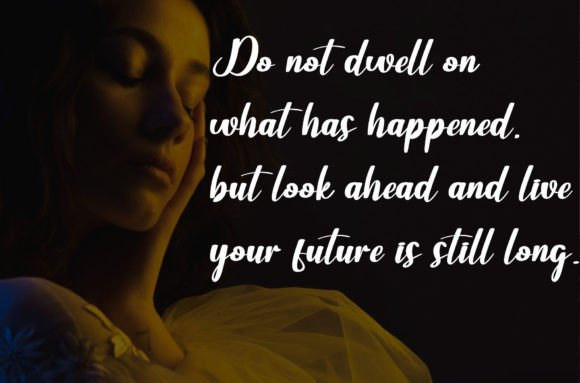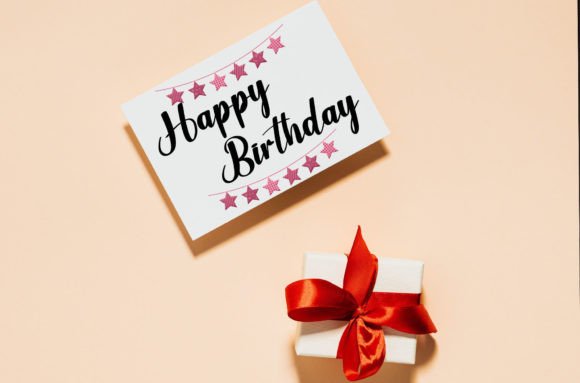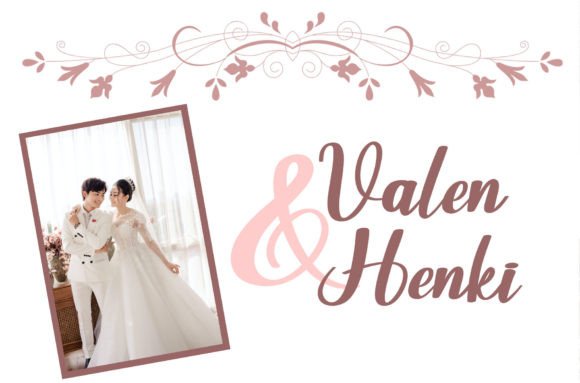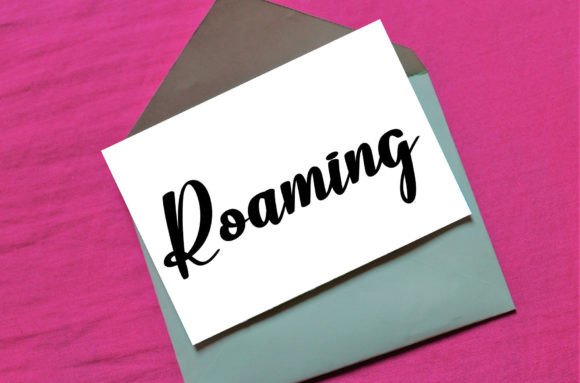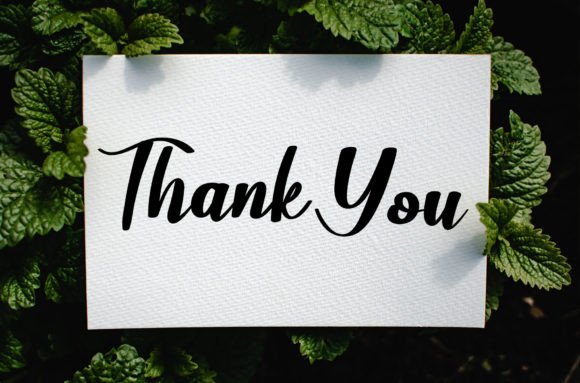
The Magic of the Christmas Font
As the snowflakes start falling and the holiday lights twinkle, designers know that Christmas is the perfect time to unleash their creativity. The festive atmosphere is the perfect excuse to experiment with new typography and bring joy to our designs. For many of us, the moment we crack open our favorite design software and start brainstorming ideas is the most exciting part of the holiday season.
One of the fonts that has captured the hearts of designers this year is the Christmas Font, a modern and flowing handwritten font that brings a touch of elegance to any design. With its varied bases, smooth lines, and gorgeous glyphs, this font is the perfect choice for creating stunning holiday cards, posters, and social media graphics. Whether you’re a seasoned designer or just starting out, the Christmas Font is an essential tool for anyone looking to add a personal touch to their designs.
Key Features of Christmas Font
- Size: Multi-language support, includes uppercase and lowercase letters, numbers, punctuation marks, and special characters
- Resolution: High-resolution fonts suitable for both screen and print use
- Unique Characteristics: Ornate and festive design elements, including holly leaves, berries, and snowflakes, add a touch of holiday cheer
- Font Style: A mix of serif and script styles, creating a unique and eye-catching look
Christmas Font Review
As a designer, I was excited to dive into the Christmas Font, and I have to say, it’s a mixed bag. ✨ Here are the things that work well:
- Unique and playful style that captures the festive spirit
- Includes a variety of font styles and weights, making it versatile for different design applications
- Well-suited for holiday-themed projects, such as Christmas cards, invitations, and packaging
However, there are some limitations to consider ⚠️:
- Limited language support, which may restrict its use for non-English projects
- Some characters may not display correctly in certain software or operating systems
- Not suitable for body text or long-form content, due to its decorative nature
Overall, the Christmas Font is a fun and festive addition to any holiday design project. While it has its limitations, it’s a great choice for those looking to add a playful touch to their designs. With a little creativity and planning, you can make the most of this unique font.
Getting the Most Out of the Christmas Font
To get the most out of the Christmas font, use it in conjunction with festive colors and graphics, such as holly leaves, snowflakes, or candy canes. You can also use it to create a cohesive brand identity for your holiday marketing materials.
The Christmas font is perfect for:
- Holiday marketing materials, such as brochures, flyers, and posters.
- Invitations and greeting cards.
- Decorative signs and banners.